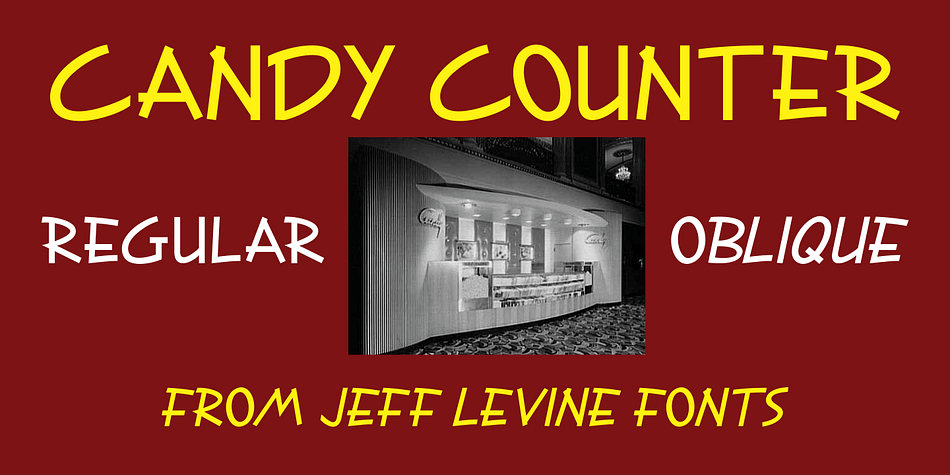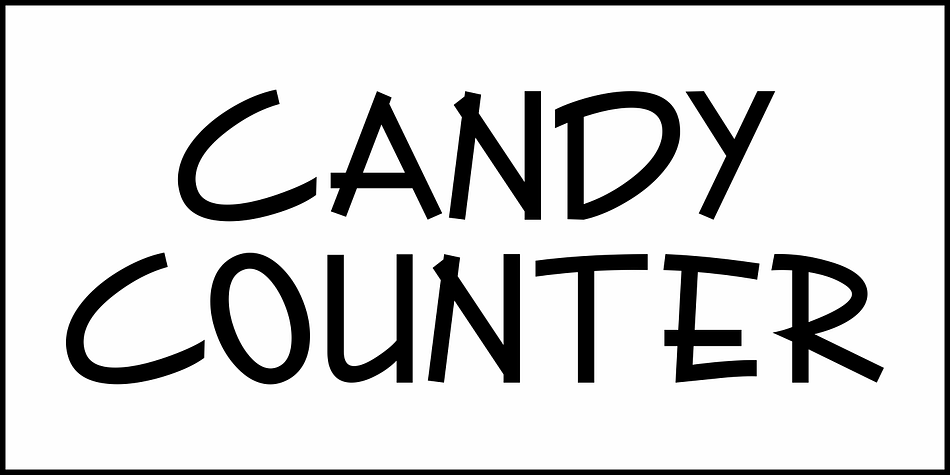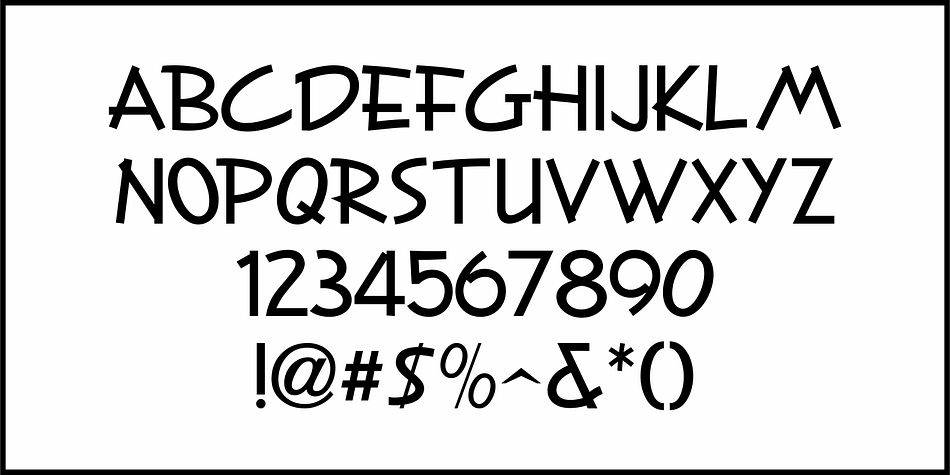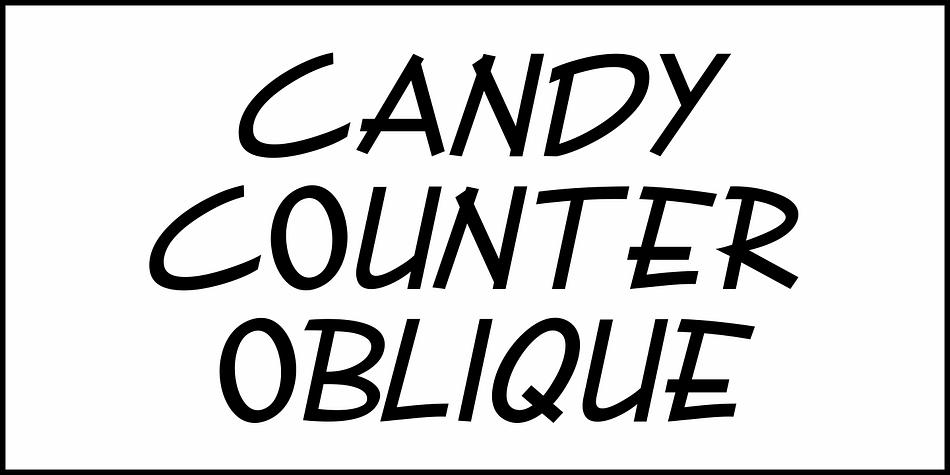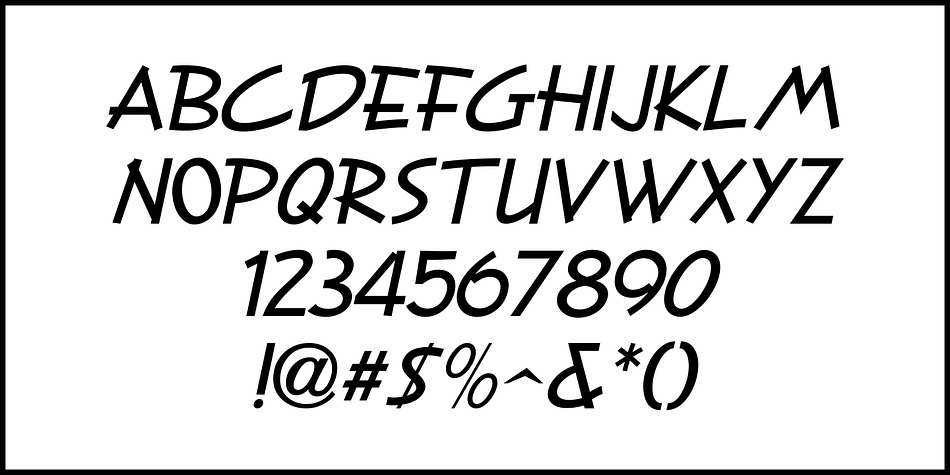
Candy Counter
Buy NowAn ad for Republic Pictures in the 1939 edition of Film Daily’s “Cavalcade” was hand lettered in a pleasant and casual sans serif type style.
This design is now available digitally as Candy Counter JNL, in both regular and oblique versions.